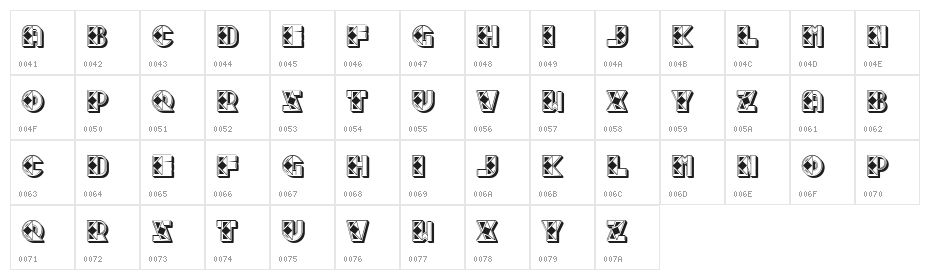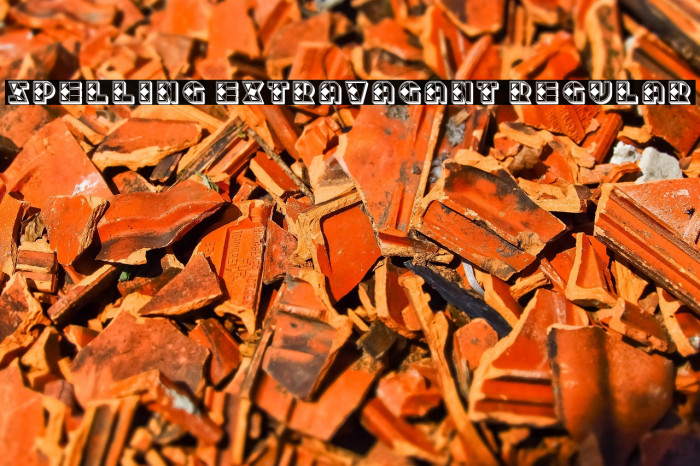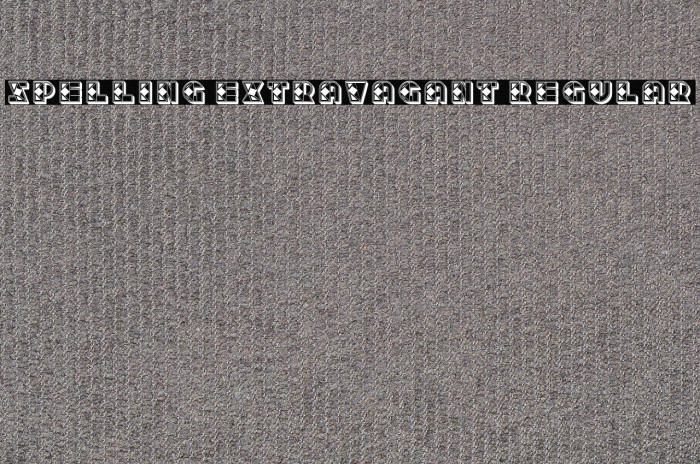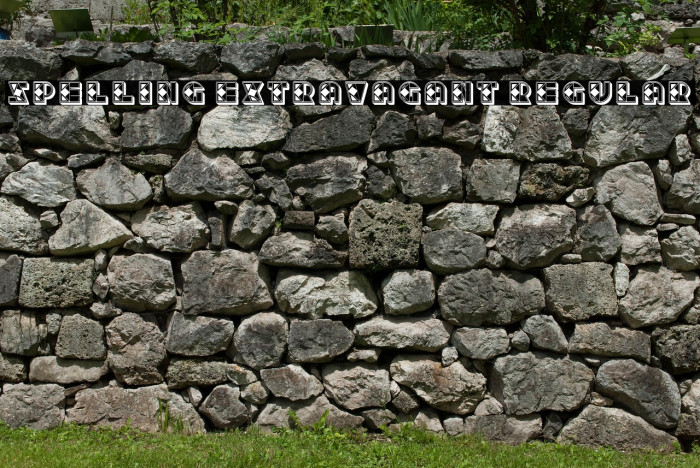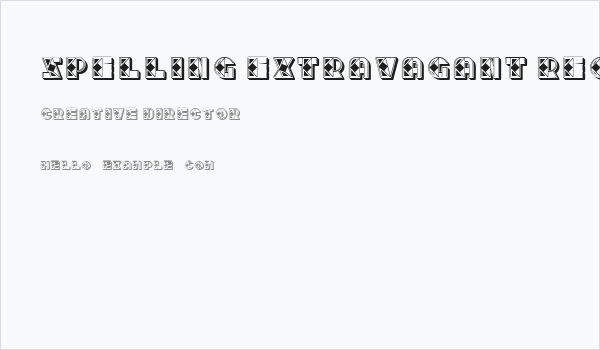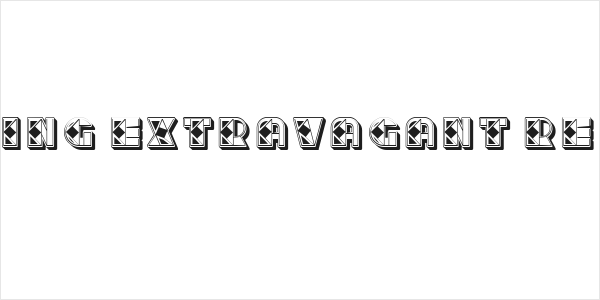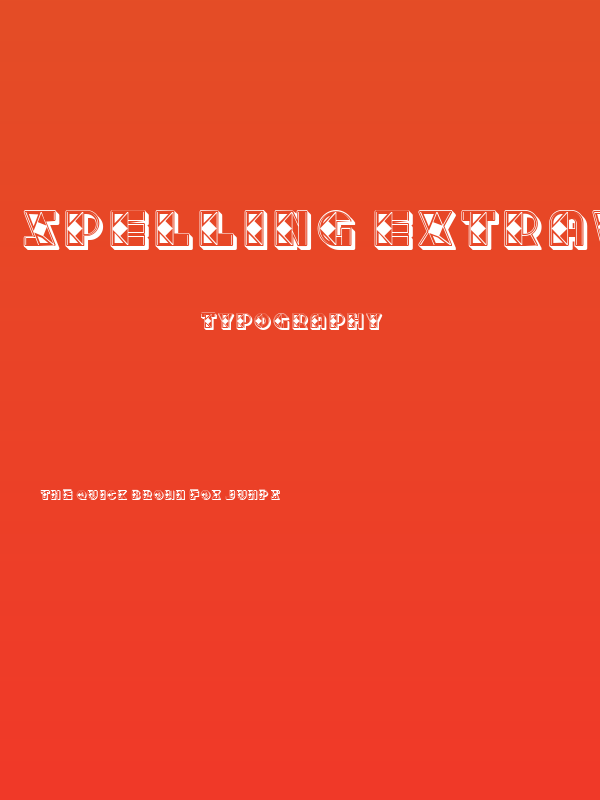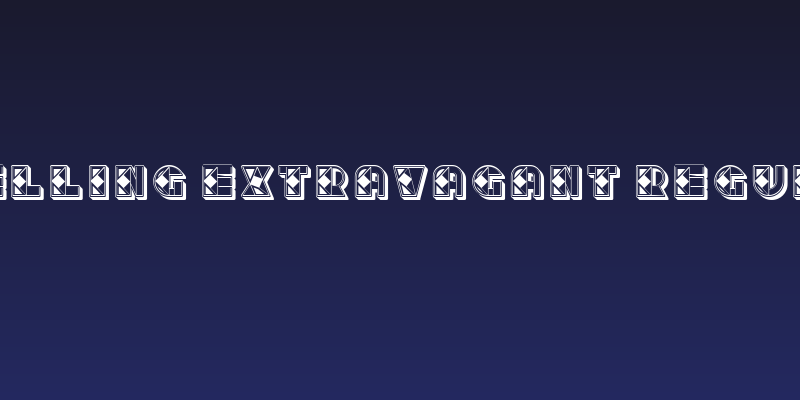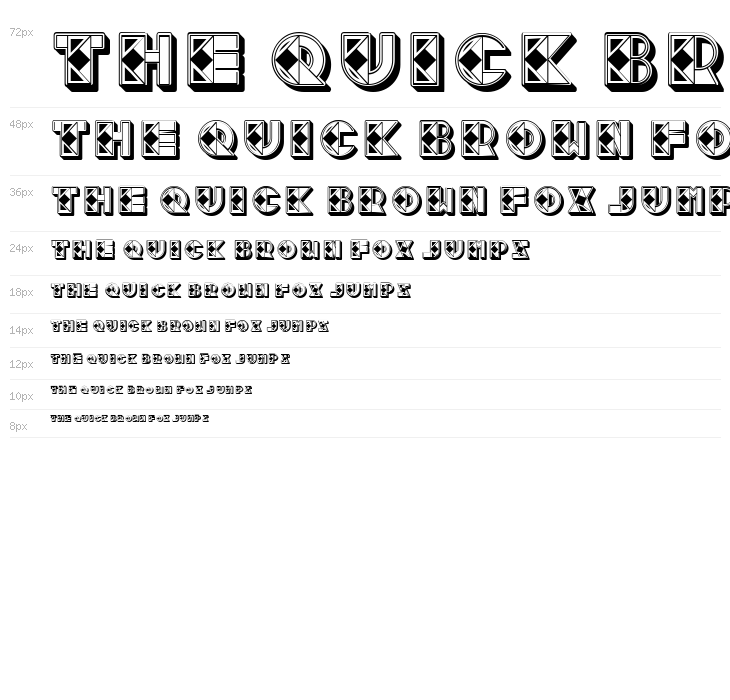
Spelling Extravagant Regular Font
Spelling Extravagant Regular Description
This font features a bold, geometric design with intricate patterns inside each character. The letters are outlined with a thick border, giving them a three-dimensional appearance. The internal patterns consist of various shapes, such as triangles and lines, creating a dynamic and eye-catching effect. This decorative style is consistent across both uppercase and lowercase letters, as well as numbers and special characters. The font's unique aesthetic makes it stand out, making it ideal for projects that require a bold and artistic touch.
| Proposed Projects | Ideal for posters, album covers, branding, and any project that requires a striking and artistic font. |